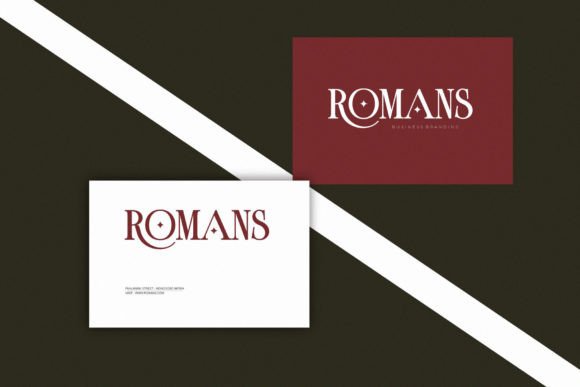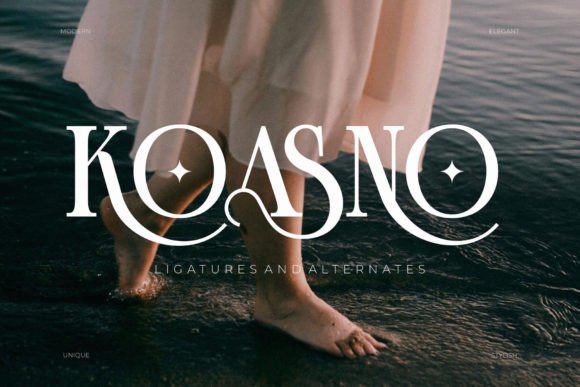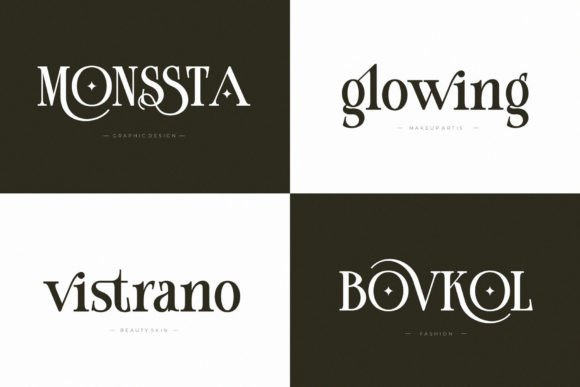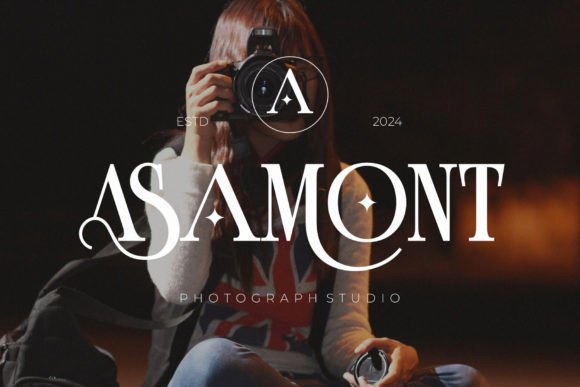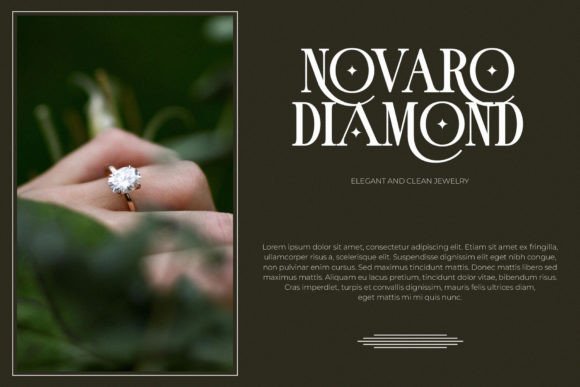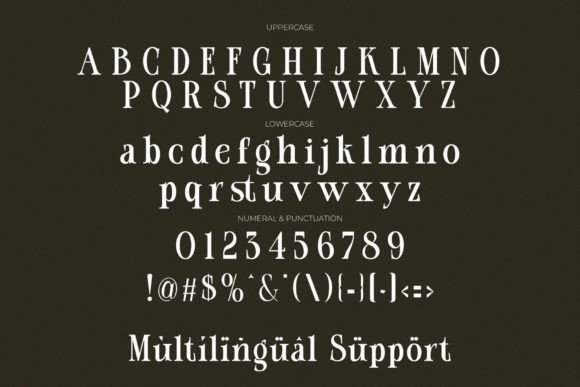
The Perfect Script: Unveiling the Beauty of Gisson Font
There’s something magical about the moment when a design comes together – the spark of creativity, the click of a pen, the swoosh of a brush. It’s a feeling that never gets old, and it’s what drives designers to push the boundaries of what’s possible. For me, it’s often about finding the perfect font to bring a project to life. And, in my opinion, there’s one font that stands out from the rest: the stunning Gisson Font.
This elegant serif font is a game-changer for designers looking to add a touch of sophistication to their work. Whether it’s a wedding invitation, a thank you card, or a logo, Gisson Font is the perfect choice for anyone who wants to create something truly special. Its versatility and timeless charm make it a valuable addition to any designer’s toolkit.
- Unique Characteristics: Features a unique blend of modern and traditional elements, with intricate details and subtle flair, making it perfect for creating visually striking designs.
Gisson Font Review
As a designer, I’ve had the chance to work with various fonts, and I must say that the Gisson Font has both impressed and disappointed me.
- The font’s elegant and sophisticated design makes it perfect for high-end branding and luxury products.
- The weight and contrast range allows for a great deal of flexibility in terms of typography and layout.
- The font’s modern yet classic feel makes it suitable for a wide range of industries, from fashion to finance.
- The font’s limited language support may be a concern for designers working on global projects.
- The font’s high contrast may not be suitable for all types of content, particularly those with complex layouts.
Overall, I’d give the Gisson Font 3.5 out of 5 stars. While it’s a beautiful and versatile font, its limitations may make it less suitable for certain projects or designers. As with any font, it’s essential to weigh the pros and cons before deciding whether to use it for your next design project.
Tips for Getting the Most Out of Gisson Font
Use Gisson font for titles and headings to create a bold and modern look.
Combine Gisson font with other fonts to create a unique and stylish design.
Experiment with different font sizes and colors to achieve the desired effect.
Use Gisson font for:
Brand logos and identities
Advertising and marketing materials
Business presentations and reports
Alternatives to Gisson Font
Montserrat is a sans-serif font designed by Julieta Ulanovsky. It’s a great alternative to Gisson Font for projects that require a clean and modern look. Montserrat is perfect for use in digital products, such as websites and mobile apps, and is also suitable for print materials like brochures and business cards.
Montserrat is more geometric and clean compared to Gisson Font, making it ideal for use in digital products where readability is crucial.
Open Sans is a modern sans-serif font designed by Steve Matteson. It’s another great alternative to Gisson Font for designers who want a clean and professional look. Open Sans is perfect for use in digital products, such as websites and mobile apps, and is also suitable for print materials like brochures and business cards.